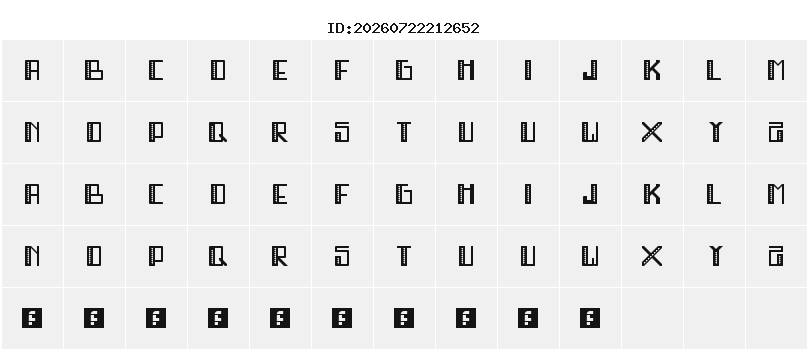
Mr.BigStuff Preview
• Font Name: Mr.BigStuff
• Designer: VincentMilesJr
• Description: ‚ÄúMr.BigStuff‚Äù was built with FontStruct
About Mr.BigStuff.ttf
Mr.BigStuff.ttf is a modern, elegant sans-serif font designed for ultimate readability and visual harmony. Perfect for branding, headlines, web design, and print materials.